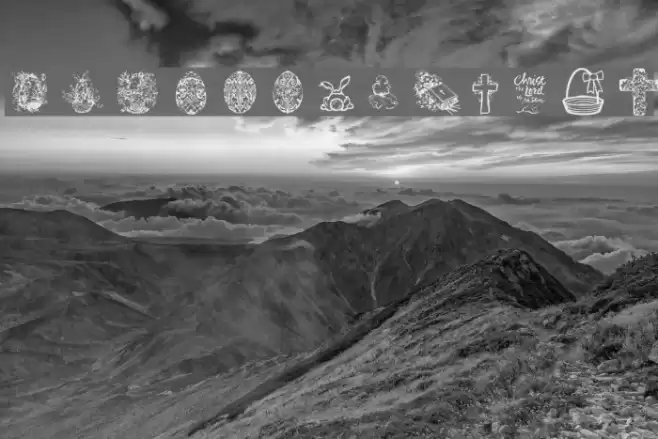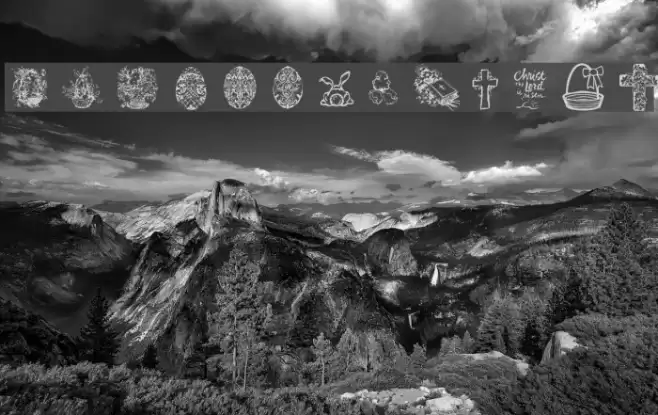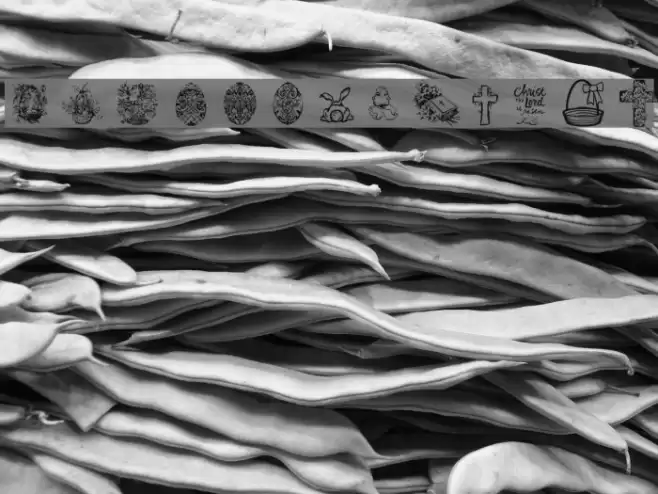
Eastertide Font
Eastertide Description
A decorative dingbat font featuring detailed Easter-themed illustrations such as eggs, bunnies, crosses, religious symbols, and seasonal motifs. Each character is represented by a unique, intricate black-and-white drawing rather than traditional alphanumeric glyphs.
Easter-themed dingbat font with detailed illustrations from Uncategorized fonts.
- Proposed Projects: Holiday cards, event flyers, crafts, scrapbooking, church bulletins, seasonal decorations.
- Overall Style: Decorative, Thematic
- Use Case: Icons, Illustrations, Decorative elements